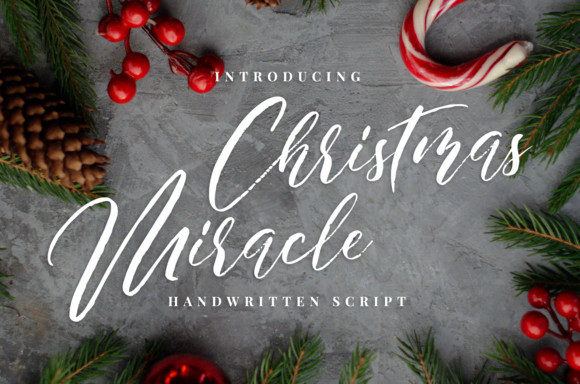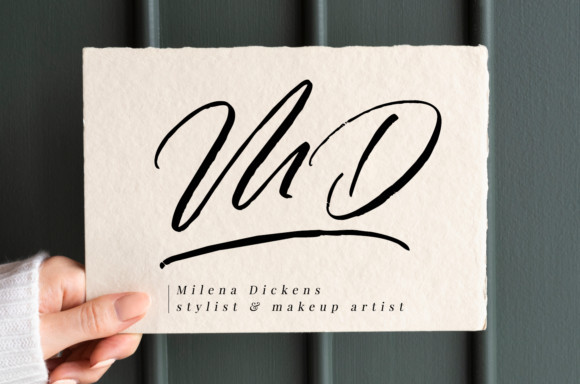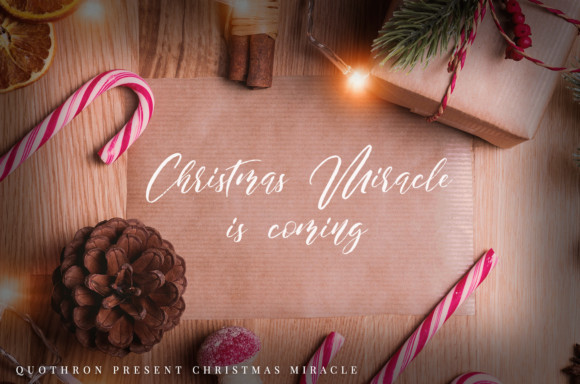
Christmas Miracle Font
Christmas Miracle is a festive, fresh, rich, and elegant calligraphy font. It’s great for Christmas-themed greeting cards, branding materials, business cards, quotes, posters, and more!